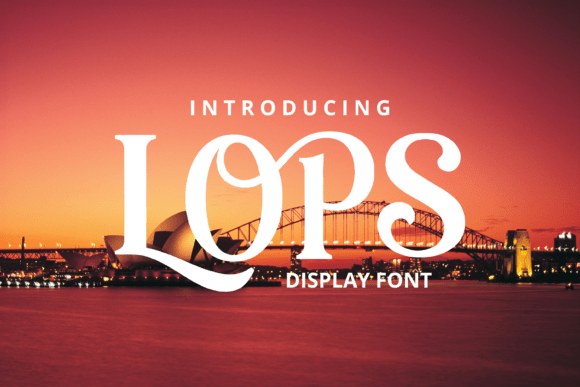
Lops: A Display Font for Elegant Editorial Design
I had been staring at the same blank InDesign spread for longer than I cared to admit. A seasonal recipe ebook sat waiting for its cover, and every typeface I tried felt either too stiff or too casual. The content deserved a voice that was both warm and polished—something that could make a title feel like an invitation. That’s when I rediscovered Lops, a display font that had been sitting quietly in my library, and the entire project shifted into place.
Lops is not the kind of typeface that shouts for attention. It carries itself with a refined, almost editorial whisper. What immediately caught my eye were the uppercase letterforms and their distinctive swashes—decorative extensions that curve and taper like a signature written with a fountain pen. The font lives in that sweet spot where classic serif structure meets ornamental flair, making it feel both time-honored and fresh. It’s a display font, meant to be seen at larger sizes, and it brings a rhythmic, hand-finished texture to any layout that needs a graceful focal point.
Setting the Tone on a Blog Header
Before the ebook project, I tested Lops on a lifestyle blog redesign. The blog’s previous header used a geometric sans serif that felt overly corporate for a site about slow living and homemade gatherings. I set the blog’s name entirely in Lops, with generous letter-spacing and a slightly muted burgundy color. The swashes on the capital letters created an immediate sense of movement—like tendrils of a vine. It transformed the header from a simple title into a design element that anchored the entire page. Readers began commenting on the new look, often using words like “elegant” and “welcoming.” That’s the power of a thoughtful display typeface: it doesn’t just label a space; it sets an emotional atmosphere.
For the blog’s article titles, I kept Lops in a supporting role. Because it’s a decorative font with elaborate strokes, using it for every piece of short content could overwhelm the eye. Instead, I reserved it for feature story headlines, category banners, and the “From the Editor” pull quote block. Pairing it with a clean, neutral serif for the body text—Cormorant Garamond was my choice—allowed the personality of Lops to surface without competing. On mobile screens, the swashes still read beautifully when I bumped the size up a touch and kept line height generous. That practical adjustment made all the difference for readers scrolling on phones.
A Recipe Ebook That Needed an Heirloom Feel
When I returned to that recipe ebook, I knew Lops would handle the title page. The collection’s name, “Hearth & Table,” stretched across the cover in Lops’ full capitals, with the swash alternates activated for the first and last letters. It immediately felt like a hand-lettered invitation one might find tucked into a family cookbook. Because the font includes stylistic alternates and ligatures, I could toggle between a more restrained capital “H” and the flourished version, giving me control over how ornate each letter became. That flexibility is invaluable when you’re designing for both a cover image and a printable interior title page where texture matters.
For section openers—Chapter One, Comforting Soups, and the like—I created a consistent pattern. Each chapter heading used Lops in a smaller display size, centered above a serif subheading and a delicate rule line. The swashes on the uppercase letters created a vertical rhythm that drew the eye down into the recipe itself. Because the font is designed primarily for display use, I never forced it into body copy. That’s a key lesson: respecting a typeface’s intended purpose keeps a layout from feeling clumsy. Lops shines as a title, subtitle, pull quote, or decorative accent, not as a paragraph workhorse.
Coaching Workbooks and Printable Planners
One of the most rewarding uses for Lops came through a client’s printable coaching workbook. The workbook included goal-setting worksheets, reflection prompts, and guided journaling pages. The client wanted the branding to feel elevated but never intimidating—soothing and personal. I used Lops for the workbook’s main title and for the large section dividers such as “Clarity” and “Growth.” Even printed on a standard laser printer, the swashes maintained their crispness because the typeface was created with high-contrast strokes that reproduce well at size. For the worksheet headers, I pulled back on the decorative alternates and used the standard capitals, which kept the instruction pages clear and approachable.
In a digital magazine mockup I later built, Lops served as the masthead font and ran across the feature spread openers. The editorial layout relied on a clear visual hierarchy: Lops for the hero headline, a clean sans serif for navigation and captions, and a neutral serif for long-form articles. That trio never felt disjointed. The serif body text echoed the traditional roots of Lops, while the sans serif provided a modern counterbalance. When I exported the magazine as an interactive PDF, the display headlines rendered sharply on both monitors and tablets, and I noticed no issues with the embedded font file. The overall effect was an editorial voice that felt intentional and cohesive.
Font Pairings That Support Editorial Flow
Building a publication-scale type palette around a characterful display font like Lops requires restraint. I’ve found that pairing it with a serif that has an understated elegance—such as Source Serif 4 or Lora—helps the swashes feel anchored rather than ornate. For websites, I often use a system sans-serif stack for user interface elements, keeping navigation and metadata clean while allowing Lops to carry the brand’s visual personality in headers and logos. On a recent newsletter template, I set the word “Inspiration” in Lops as the masthead, then used a muted sans for the issue date and a classic serif for the lead article. The result felt like a digital version of a thoughtfully typeset broadsheet.
It’s also worth considering how a display font reads in pull quotes. I’ve used Lops for a centered quotation on a lifestyle feature page, with the swashes acting as natural ornamental brackets around the text. At larger sizes, the font’s letterform details—the tapered terminals and gentle weight contrasts—create a hand-wrought feel that invites a reader to pause. For magazines and editorial blogs, that pause is precious real estate. It signals that the content is worth savoring.
Choosing a display typeface always feels a bit like choosing the right voice for a story. Lops doesn’t demand center stage, but it shapes everything around it, quietly elevating a recipe collection into an heirloom, a blog into a destination, and a workbook into a gift. Watching it settle into a new project, letter by letter, has become one of my favorite parts of the design process.